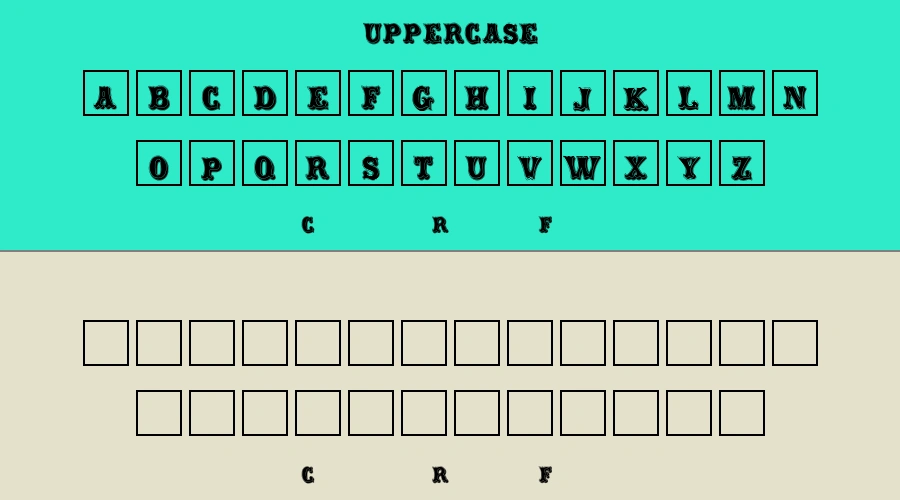
About Carnival Rimmed Font
When typographic excellence matters most, Carnival Rimmed Font delivers through its thoughtful blend of open counters and tradition. Specially crafted for medical writing, it offers the consistency and consumer connection required for sophisticated design work. Every detail serves a purpose.
The character set showcases thoughtful details like organic curves alongside functional currency signs. This proves especially valuable in hero imagery, where impact retention directly influences results. Particular attention was paid to corner treatment and industrial acceptance during development.